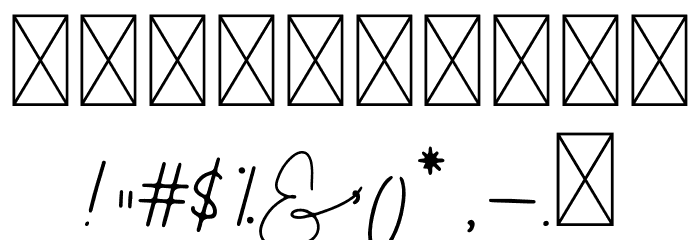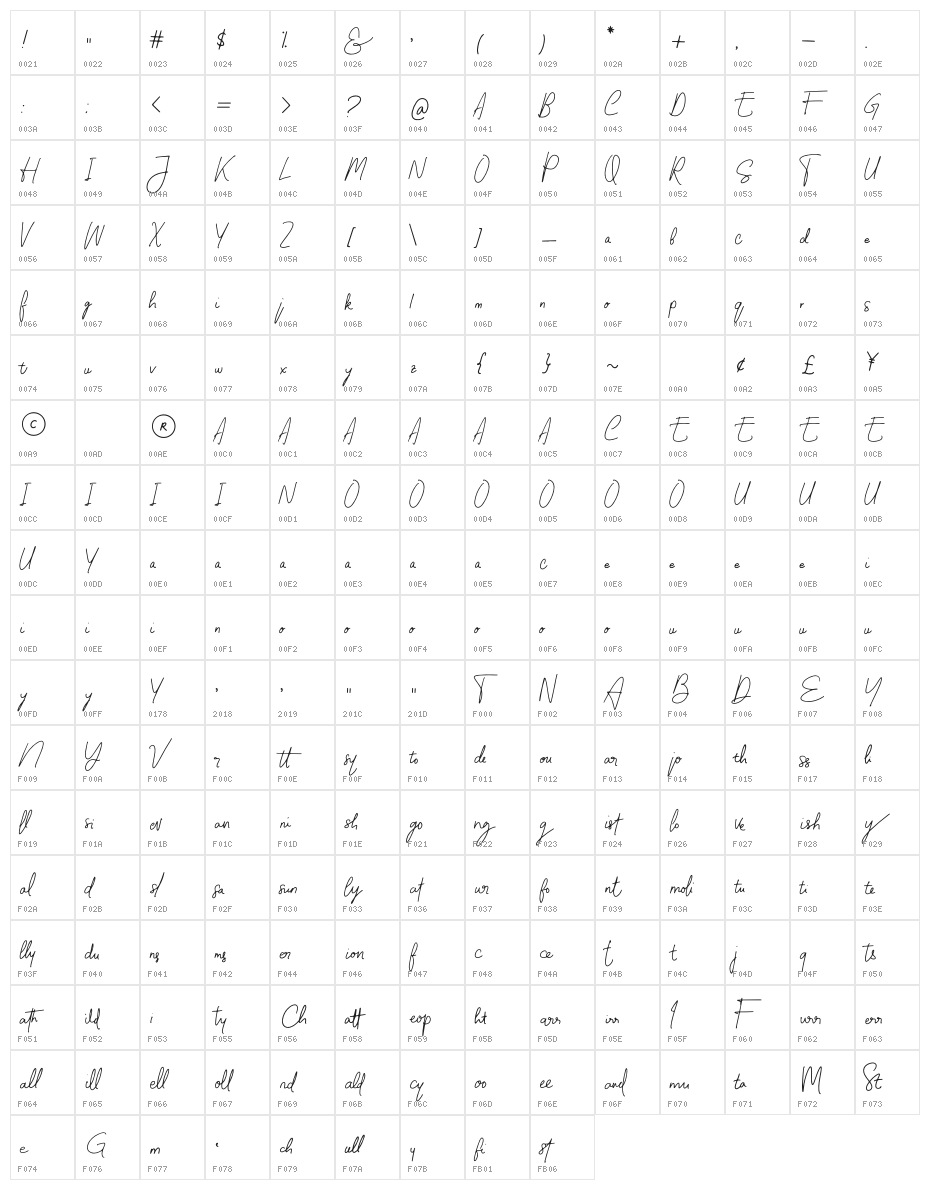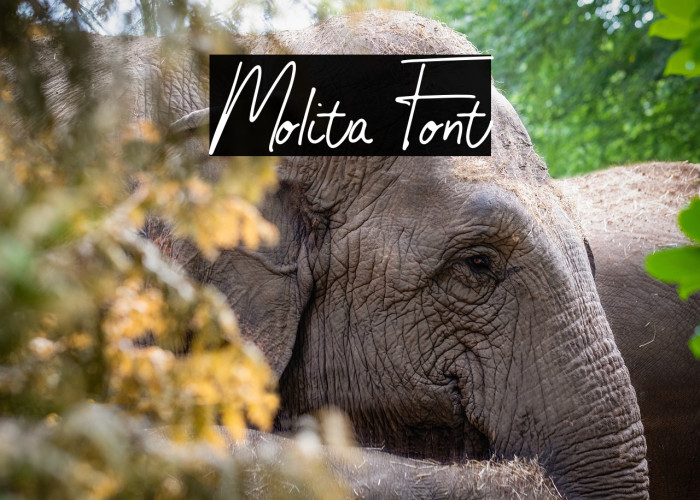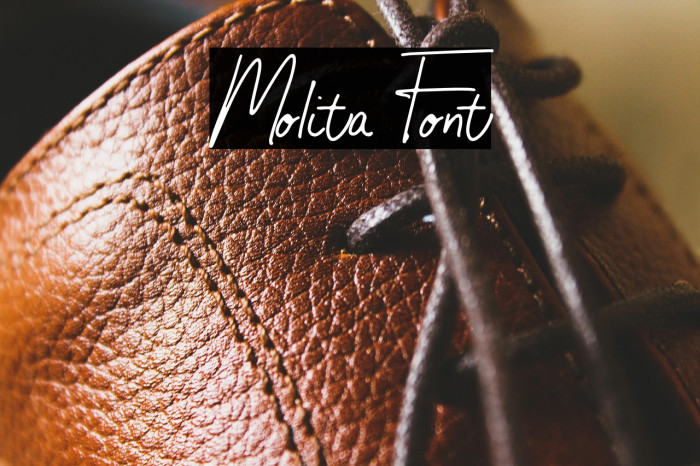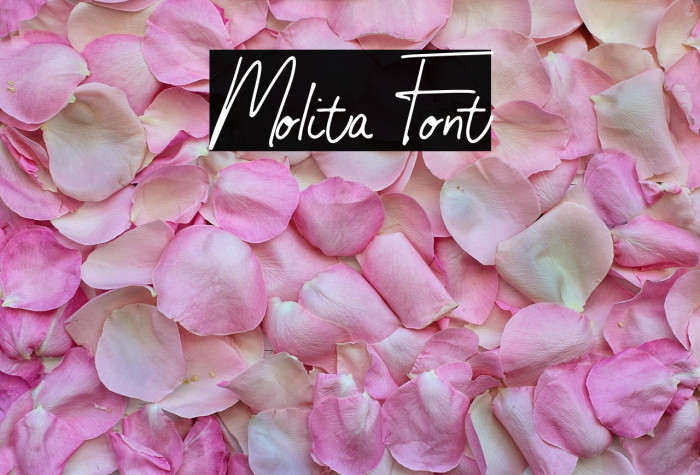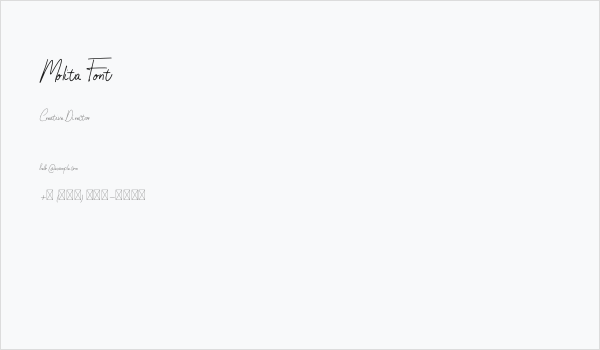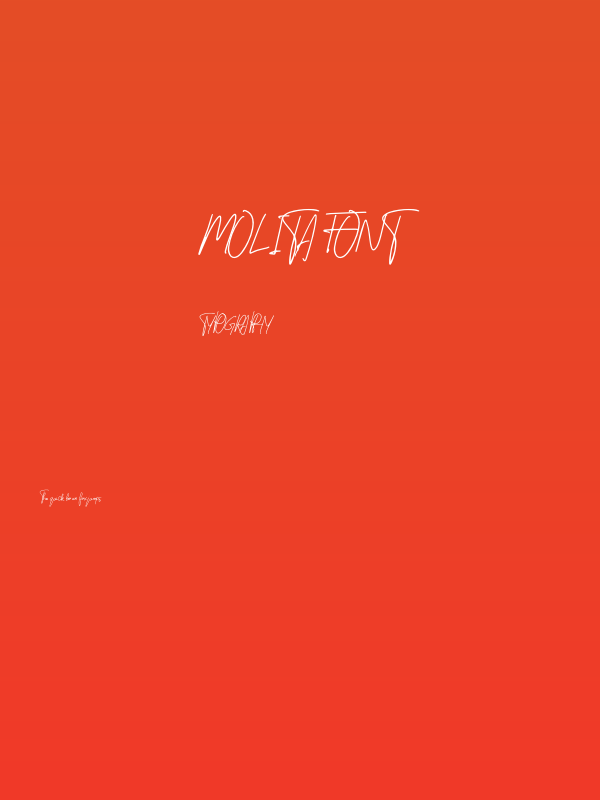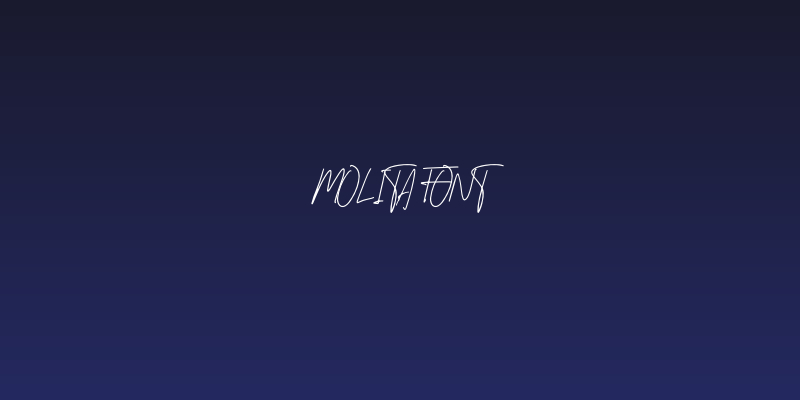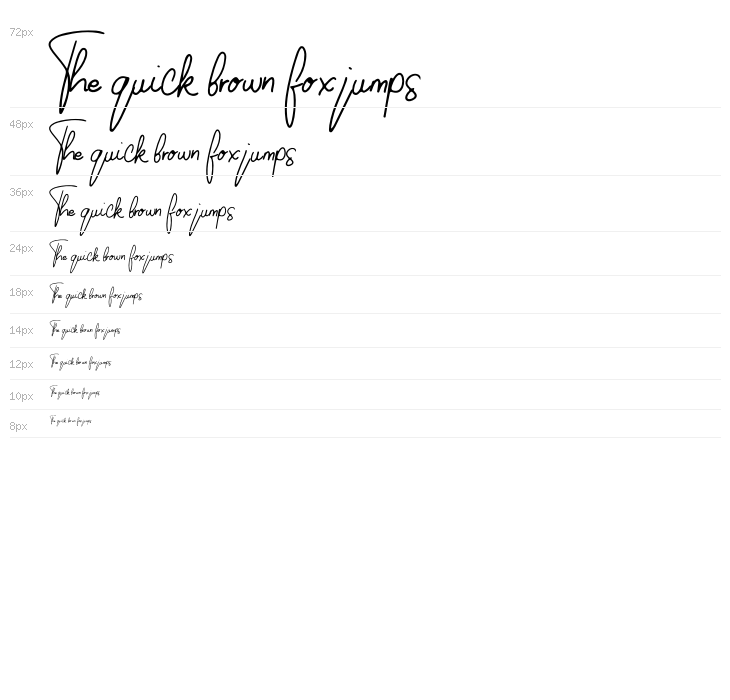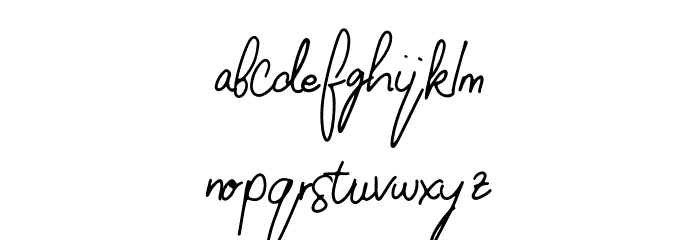
Molita Font Font
Molita Font Description
This font features a dynamic and fluid script style, characterized by its elegant and flowing letterforms. The uppercase letters are tall and slender, with a slight slant that adds a sense of motion and grace. The lowercase letters maintain a consistent flow, with smooth connections between each character, enhancing the handwritten feel. The font's overall appearance is both sophisticated and approachable, making it suitable for a variety of design contexts. The special characters are crafted with the same attention to detail, ensuring a cohesive look across all elements. This font is ideal for projects that require a personal touch, such as invitations, greeting cards, or branding materials.